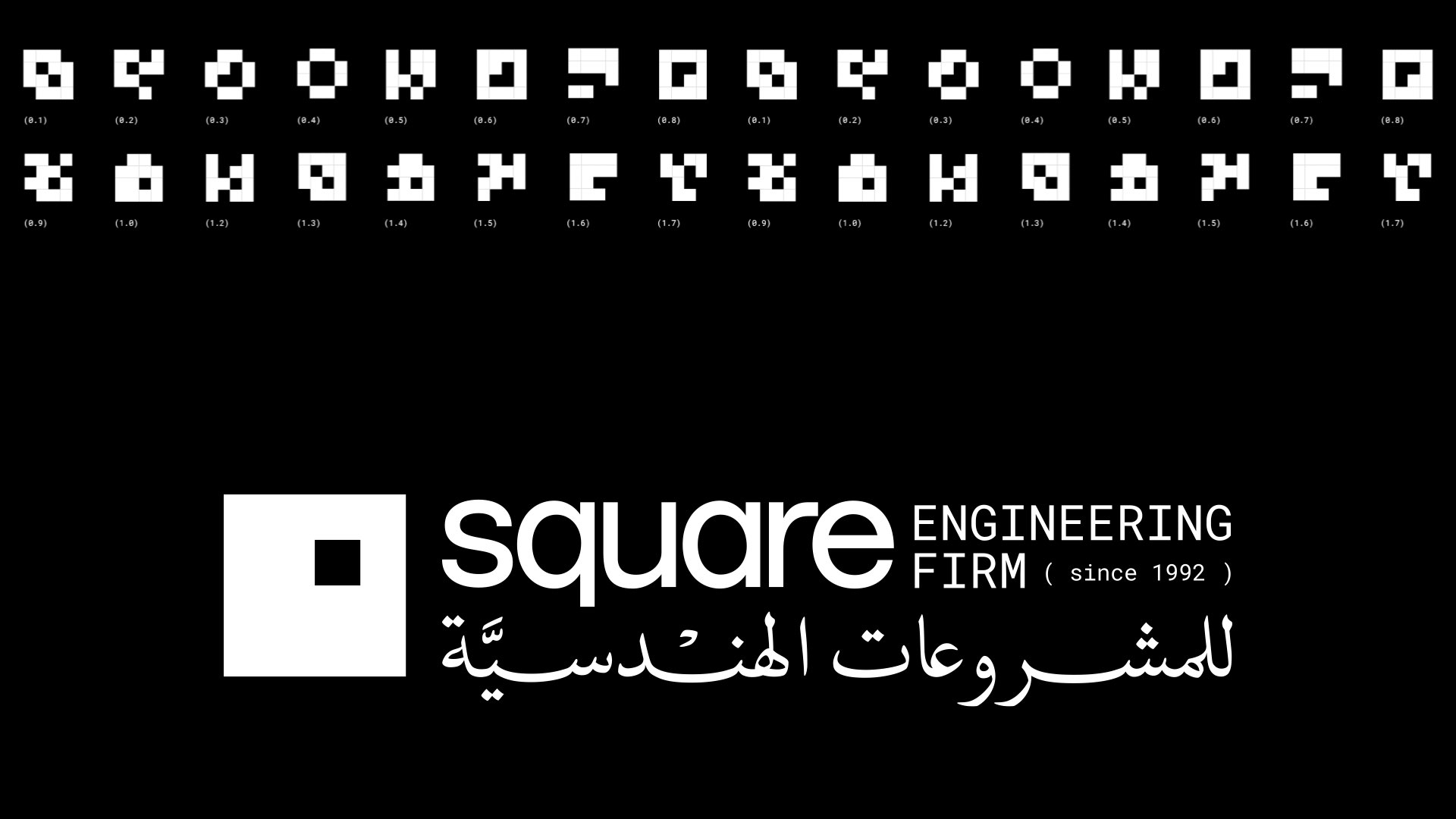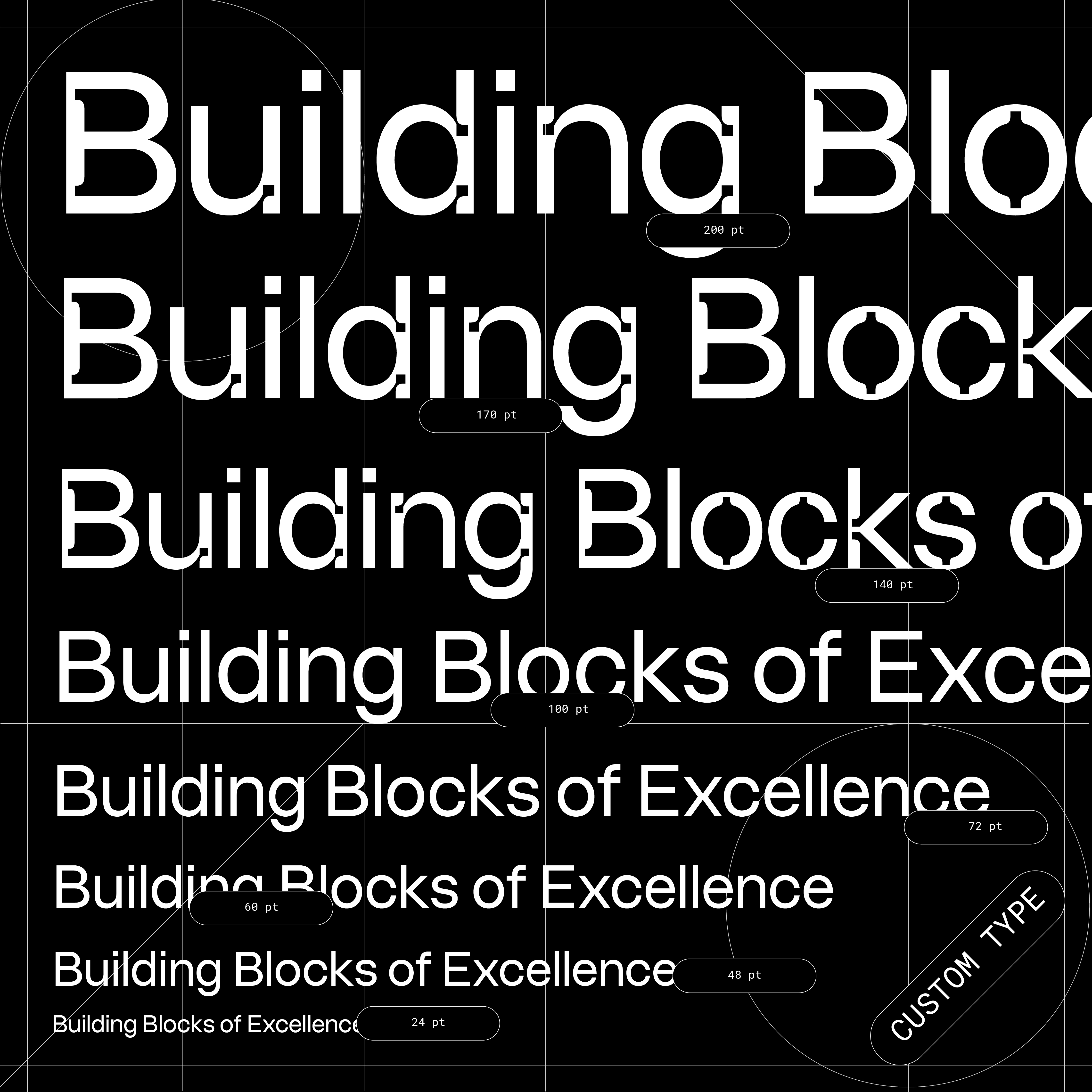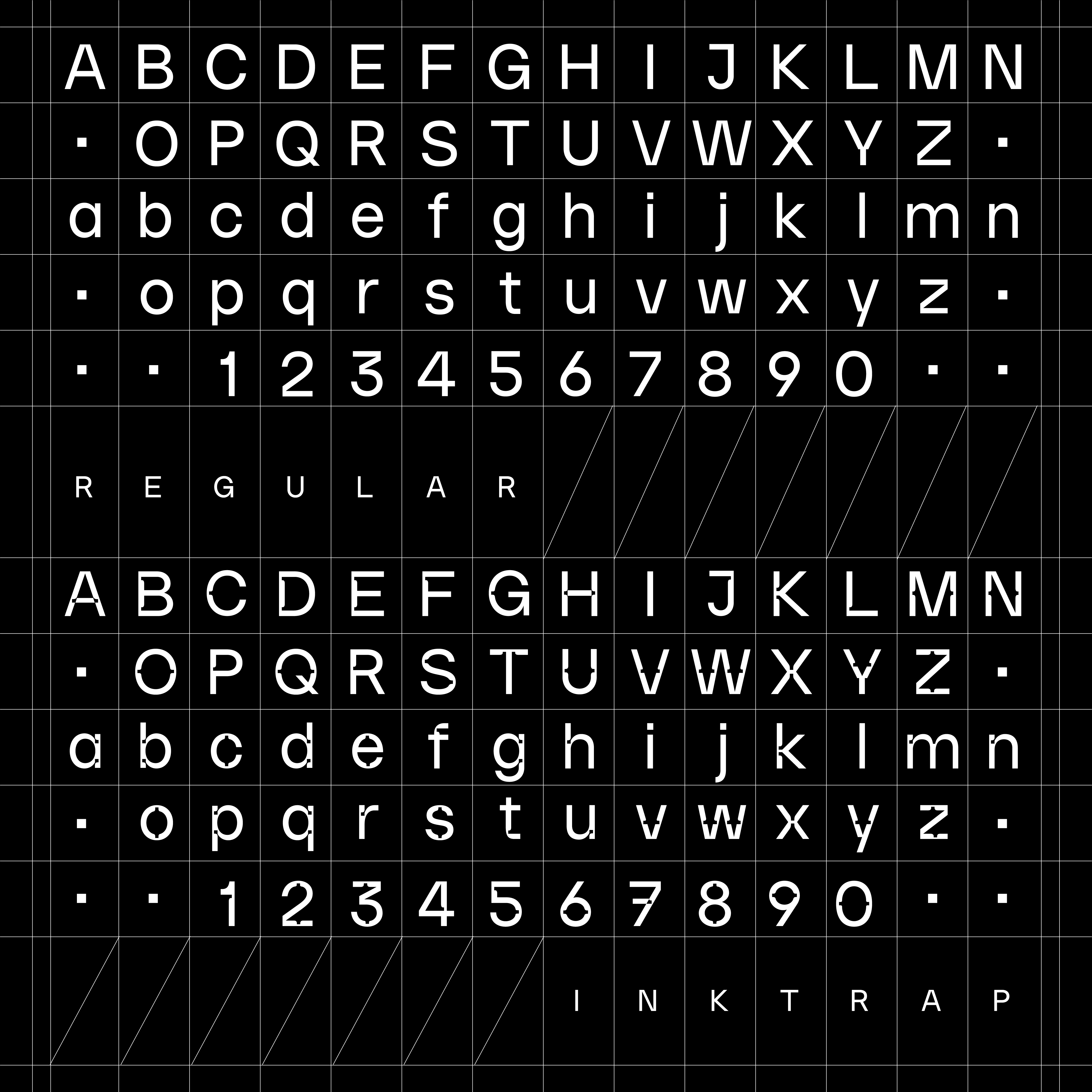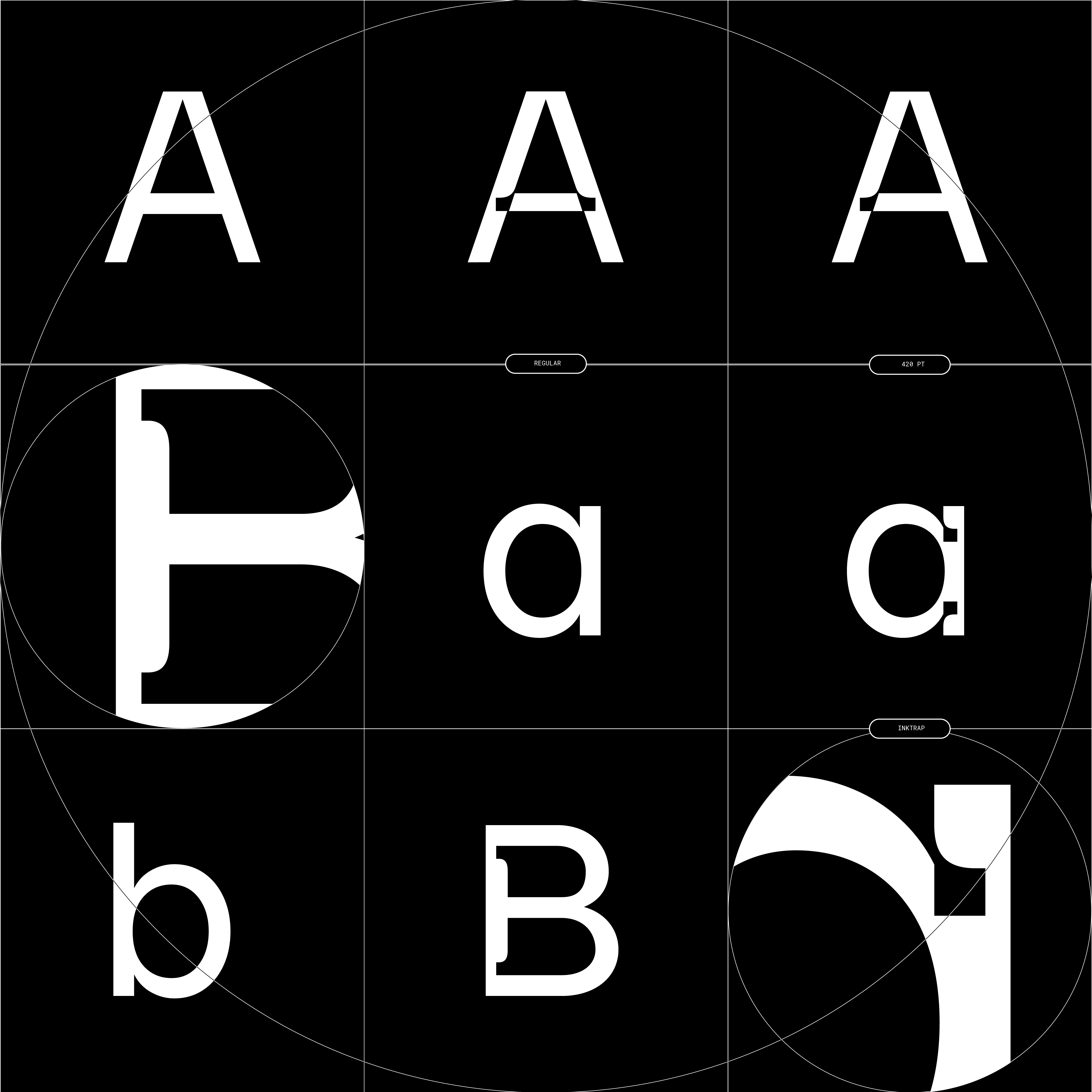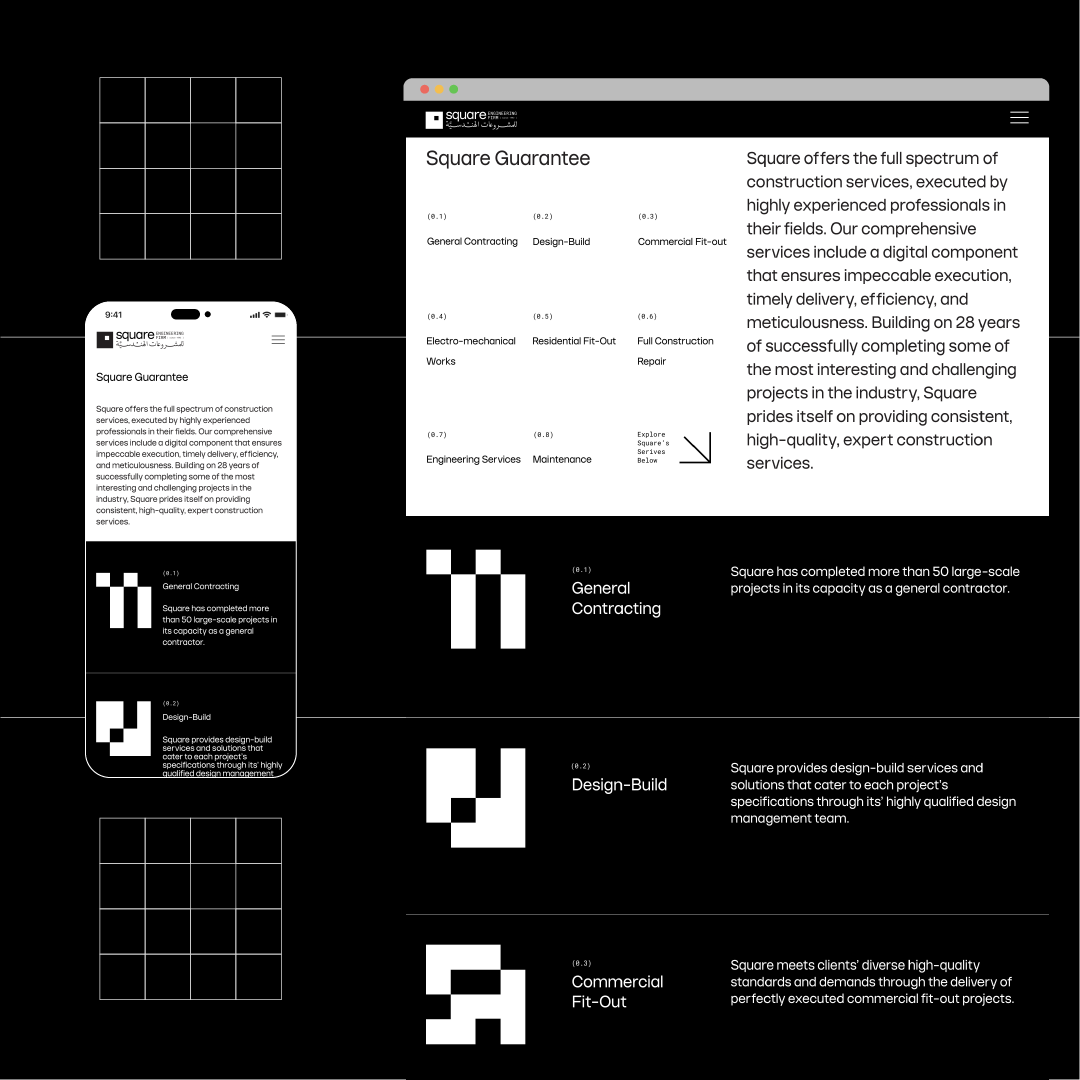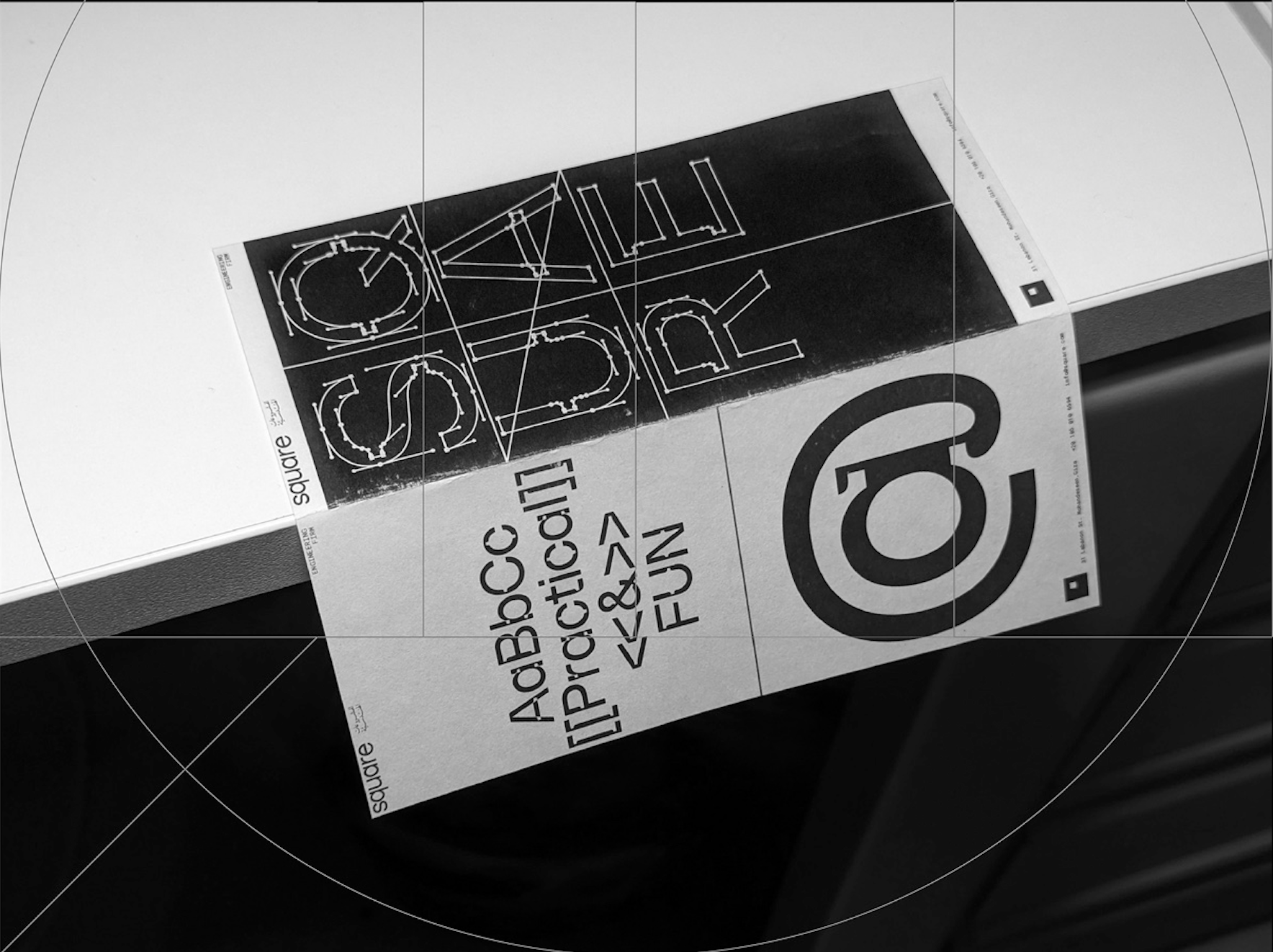
Square
Custom typeface for Square Engineering Firm. We took the squared module even further with a customized typeface for use across communication channels. A display version with dynamic “inktraps” using the extracted square as the building block and a regular style combining the forms of grotesque and geometric typefaces.